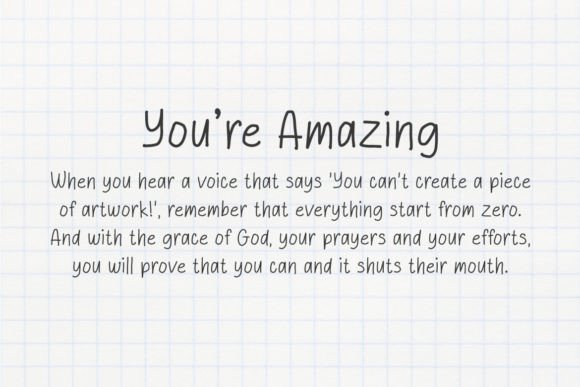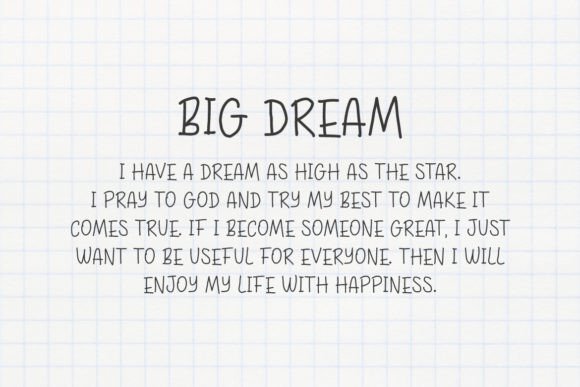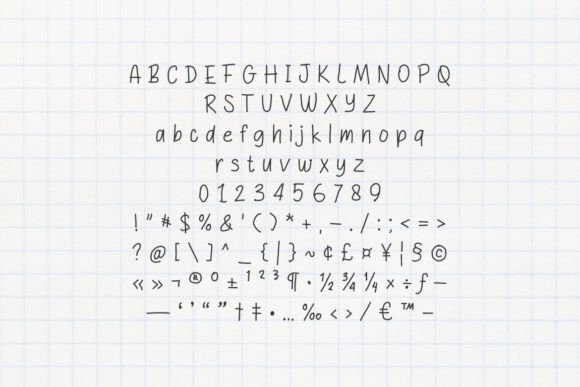
Introducing Daughter Hand Font: A Minimalist Handwritten Marvel
In the world of typography, fonts play a crucial role in conveying messages, evoking emotions, and creating visual identities. For designers, crafters, and creative enthusiasts, finding the perfect font can be a daunting task. However, if you’re looking for a minimalist handwritten font that exudes elegance and simplicity, look no further than Daughter Hand Font.
What is Daughter Hand Font?
**Daughter Hand** is a minimalist handwritten font designed to add a personal touch to various creative projects. Its clean lines, subtle curves, and effortless flow make it an ideal choice for a wide range of applications, from flyers and book titles to advertisements and social media content.
Key Features of Daughter Hand Font
- Minimalist Design: Daughter Hand Font boasts a simple, uncluttered design that ensures your message takes center stage.
- Handwritten Style: The font’s handwritten nature adds a touch of warmth and personality to your projects.
- Versatility: Use Daughter Hand Font in various contexts, including logos, branding materials, and digital content.
- Ease of Use: The font is easy to read and works well in both digital and print formats.
Uses of Daughter Hand Font
The versatility of Daughter Hand Font makes it suitable for a multitude of projects, including:
- Flyers and Brochures: Add a personal touch to your marketing materials with this elegant font.
- Book Titles and Covers: Use Daughter Hand Font to create eye-catching book titles and covers that stand out.
- Advertisements: The font’s minimalist design ensures your ads look clean and professional.
- Social Media Content: Elevate your social media posts with a font that exudes simplicity and sophistication.
- Logos and Branding: Create a lasting impression with a logo that features Daughter Hand Font.
Daughter Hand Font offers numerous benefits for designers and crafters, including:
- Time-Saving: The font’s versatility and ease of use save you time and effort in finding the perfect typography.
- Consistency: Use Daughter Hand Font across various projects to maintain a consistent visual identity.
- Creativity Boost: The font’s minimalist design encourages creativity and experimentation in your projects.
Daughter Hand Font is a valuable addition to any designer’s or crafter’s toolkit. Its minimalist handwritten design, versatility, and ease of use make it an excellent choice for a wide range of creative projects. Whether you’re working on a flyer, book title, advertisement, or social media content, Daughter Hand Font is sure to elevate your design and convey your message with elegance and simplicity.